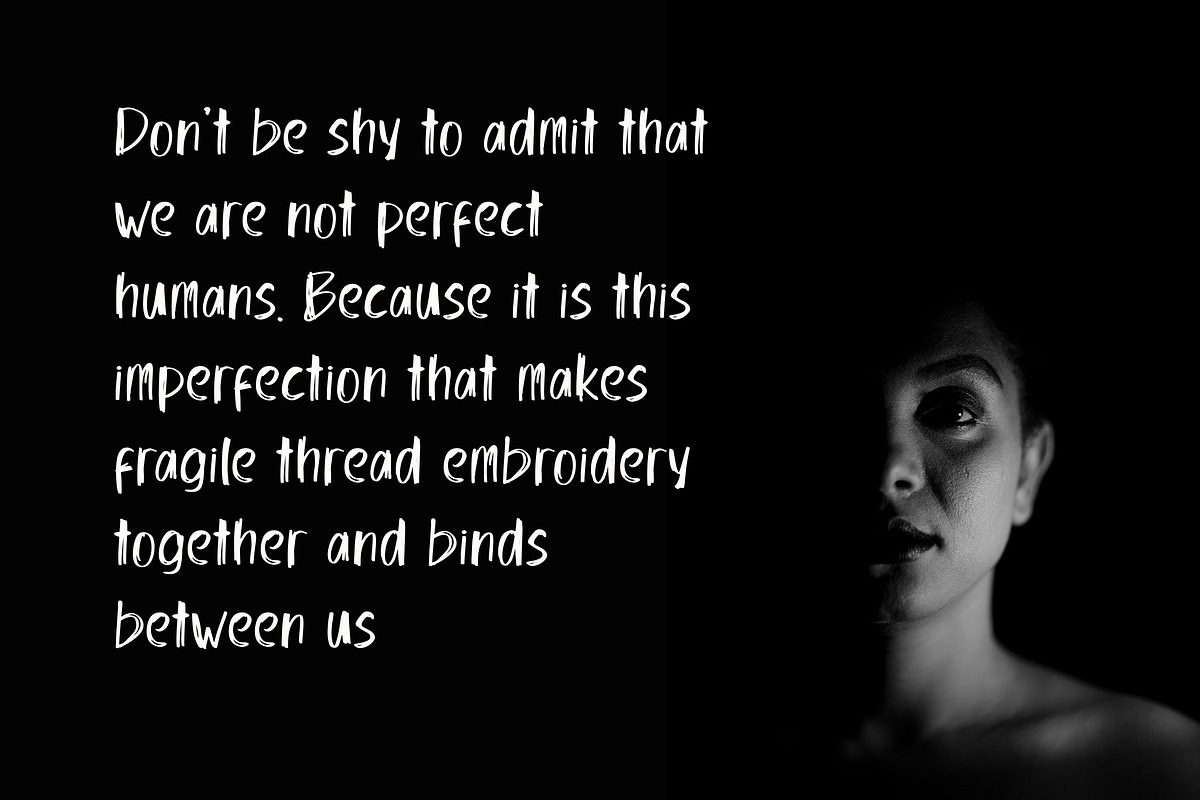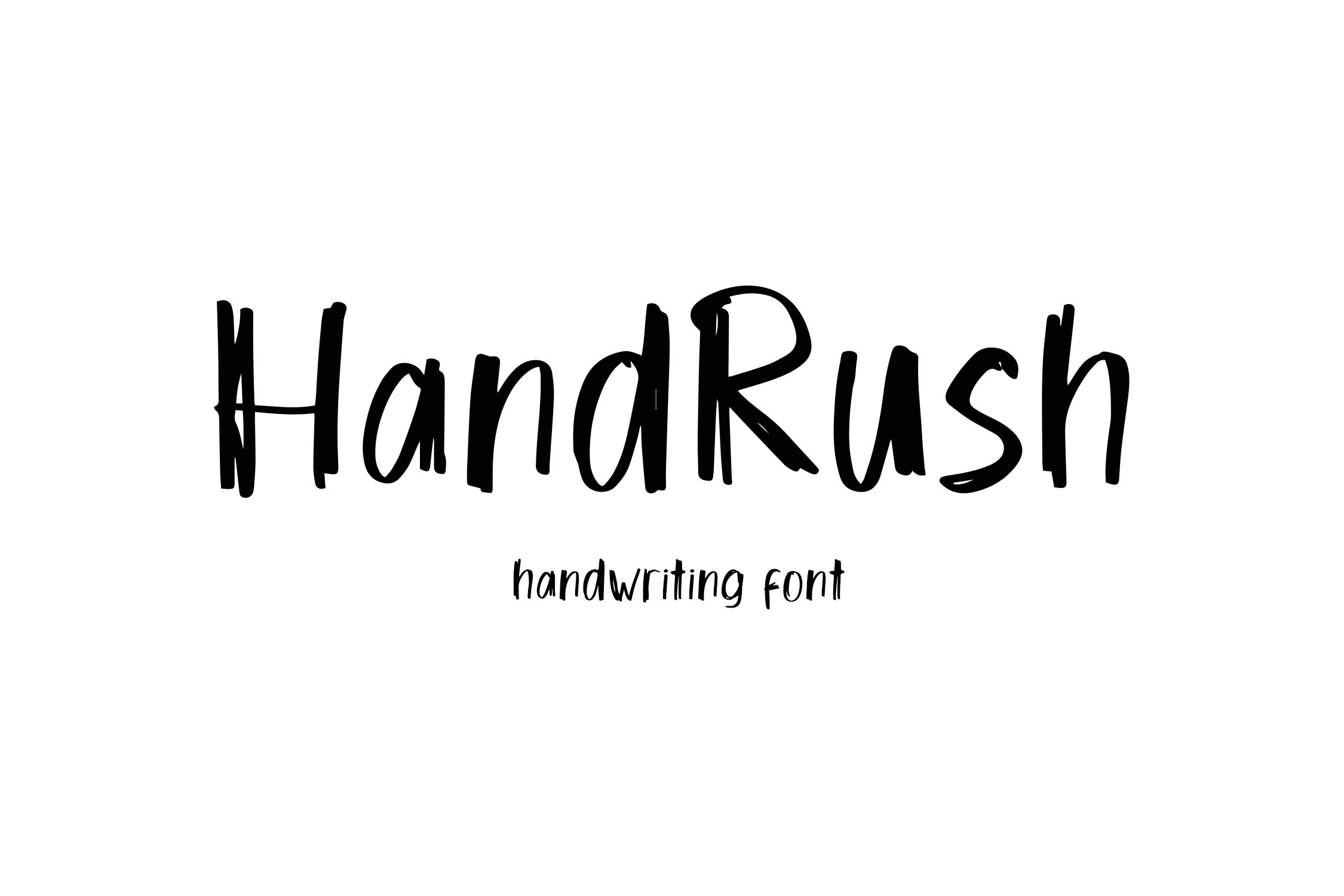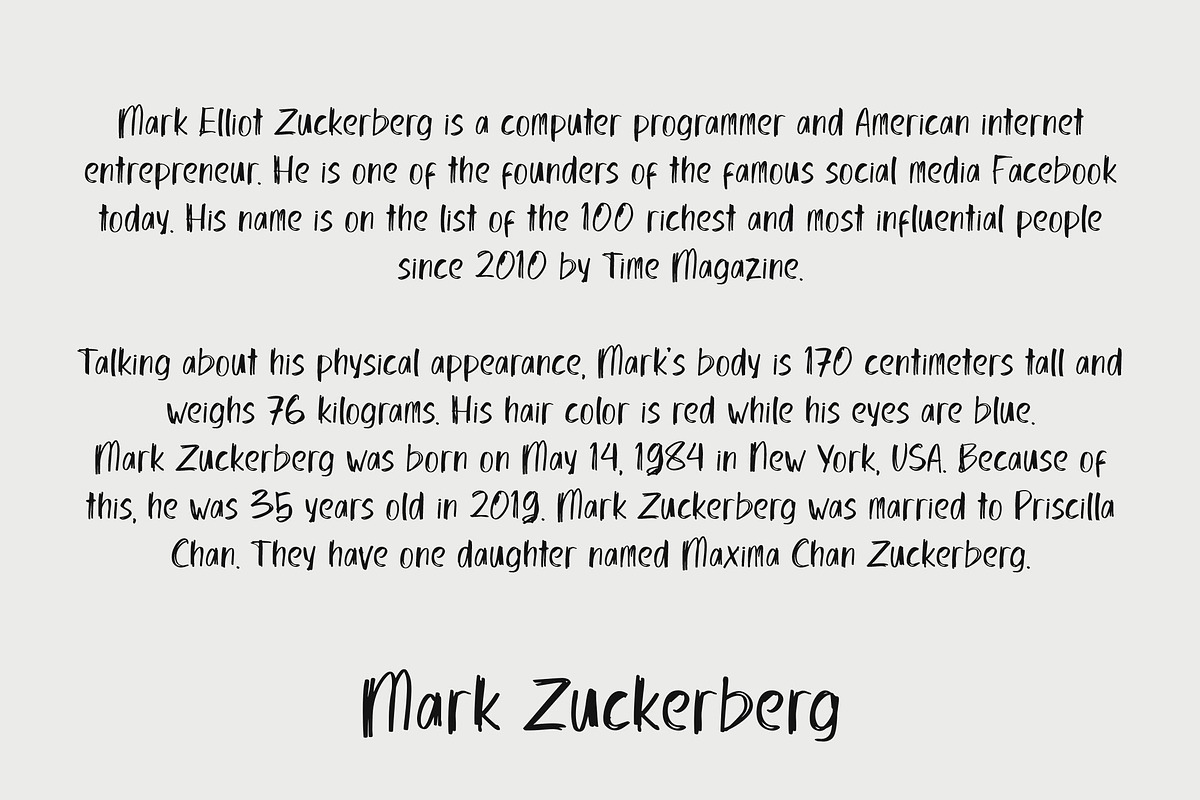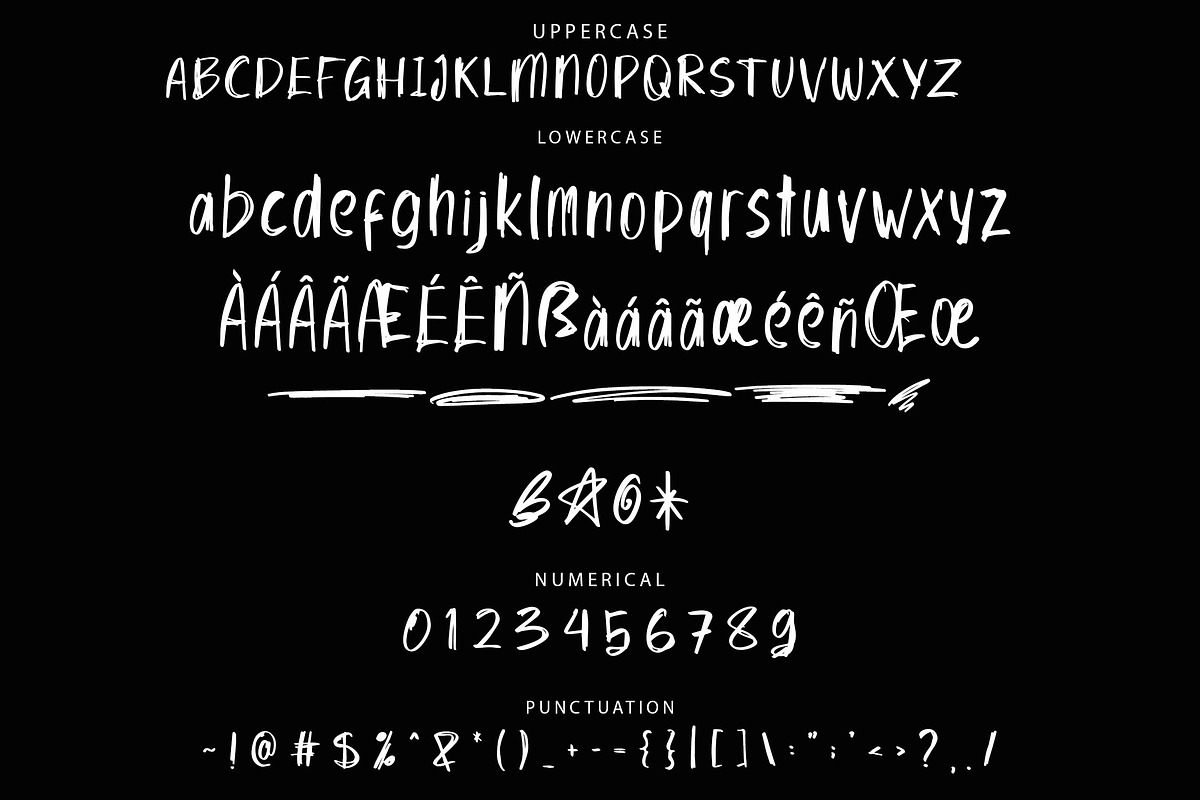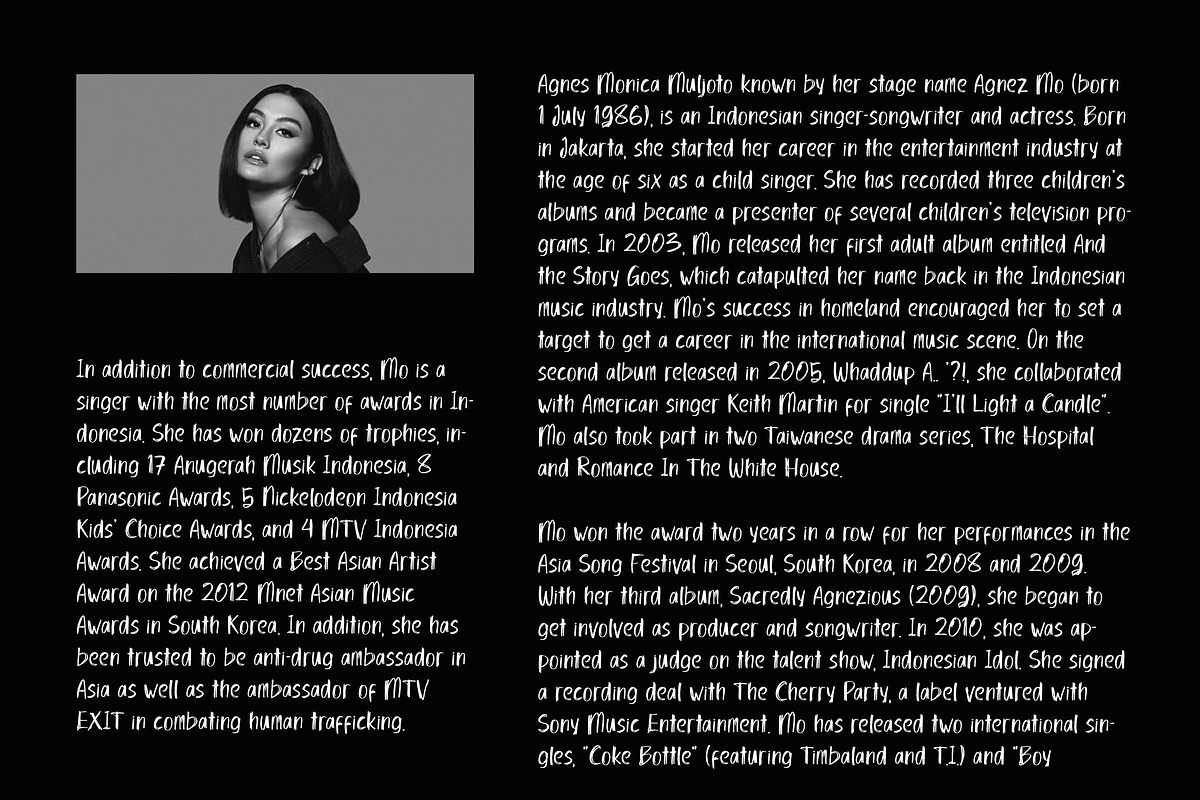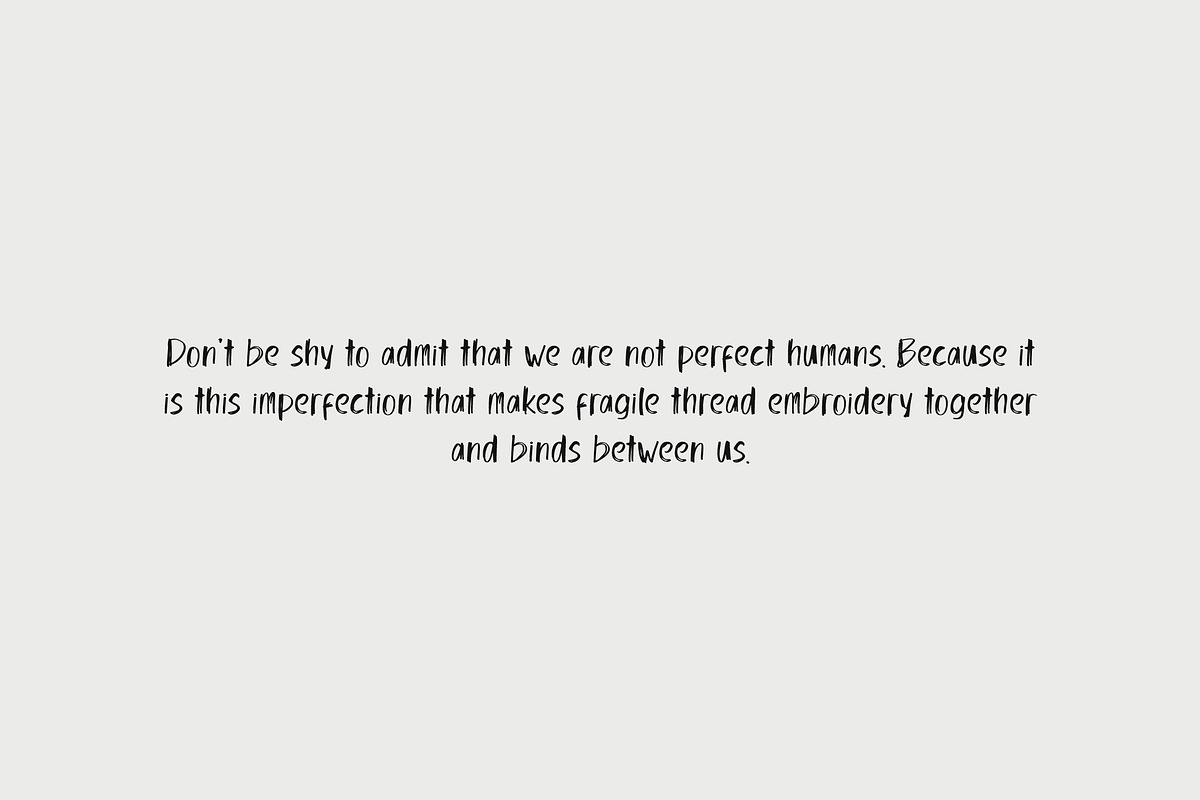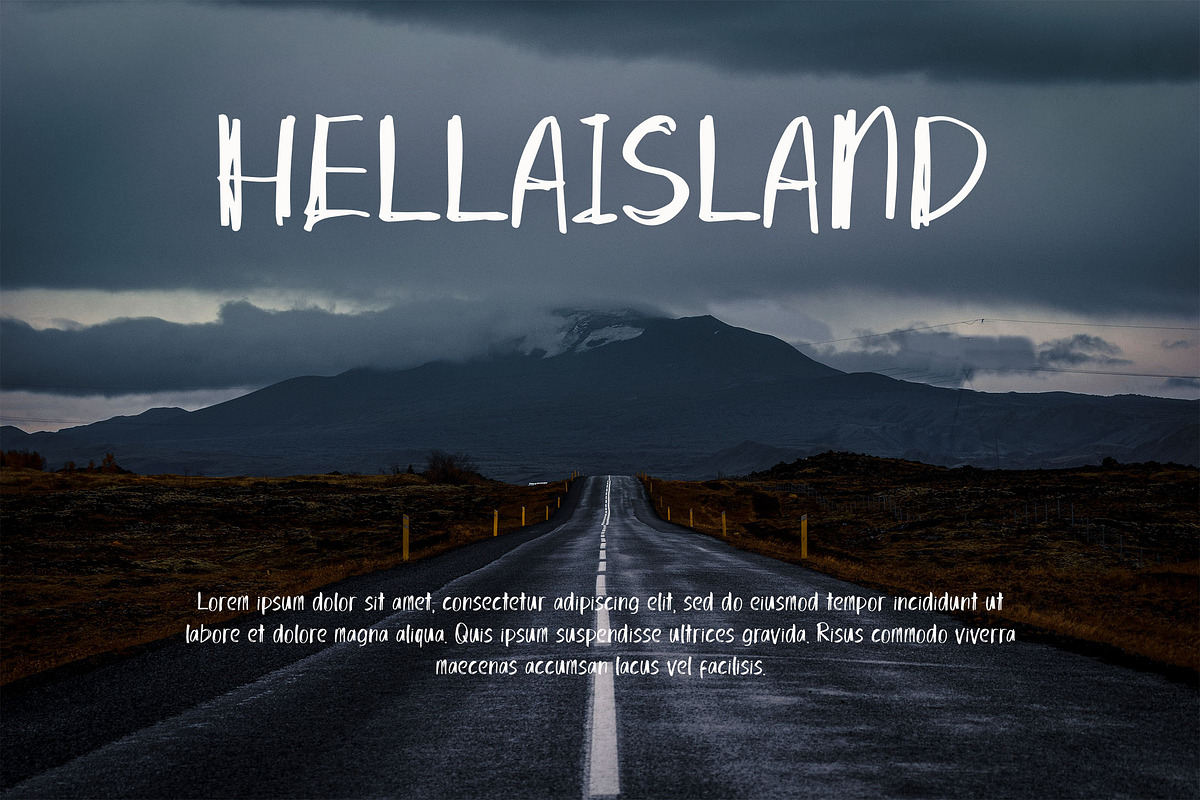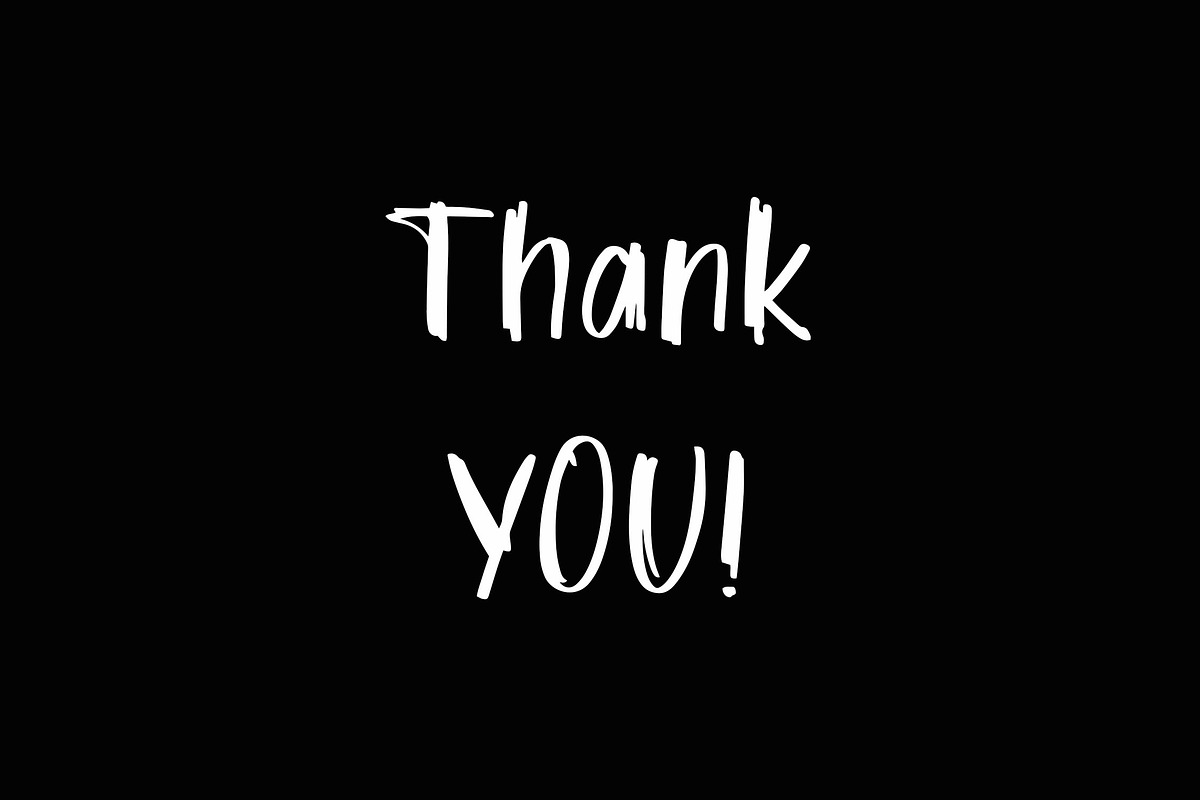
HandRush Handwriting Font
HandRush - Bold Rough Handwriting Font
HandRush is a dynamic handwriting font with a bold, rough style, perfect for adding a raw and authentic touch to your designs. With its unique character shapes, HandRush is ideal for creating eye-catching branding, packaging, or any creative project that demands a strong, edgy vibe.
- Includes ligatures, stylistic alternates, and swashes
- Supports multiple languages for global versatility